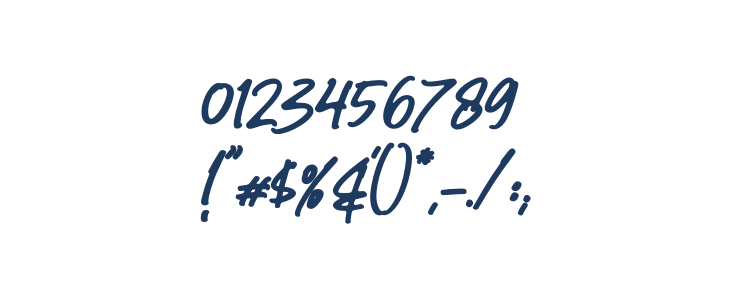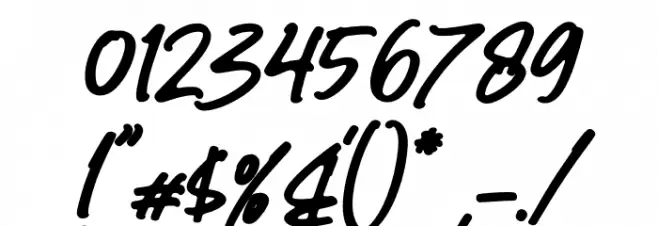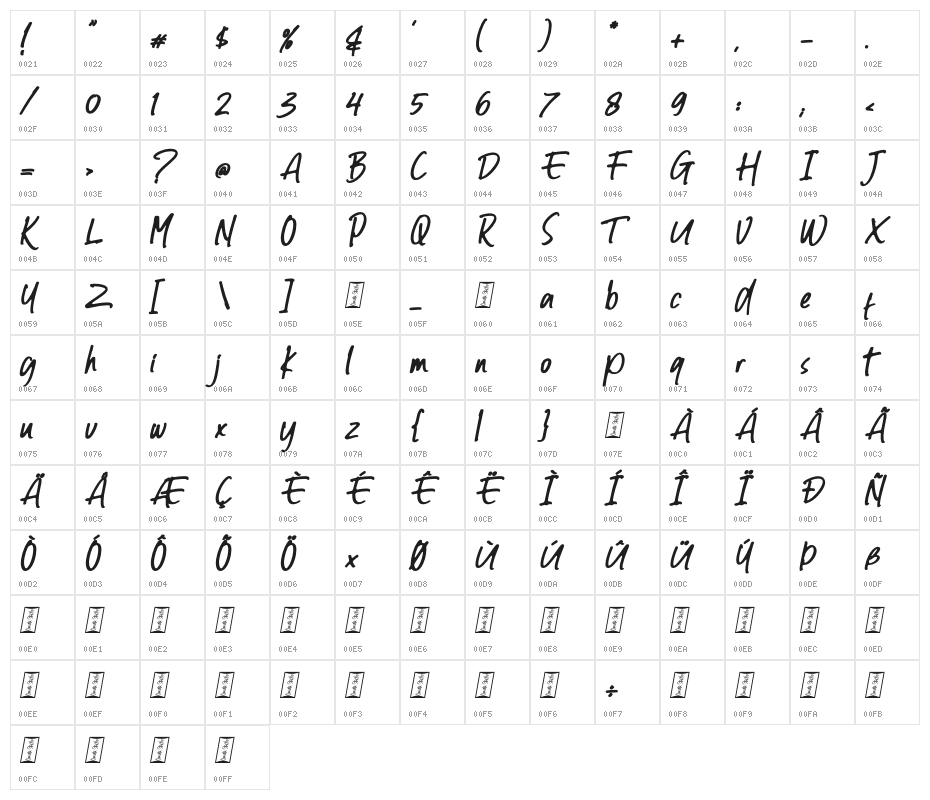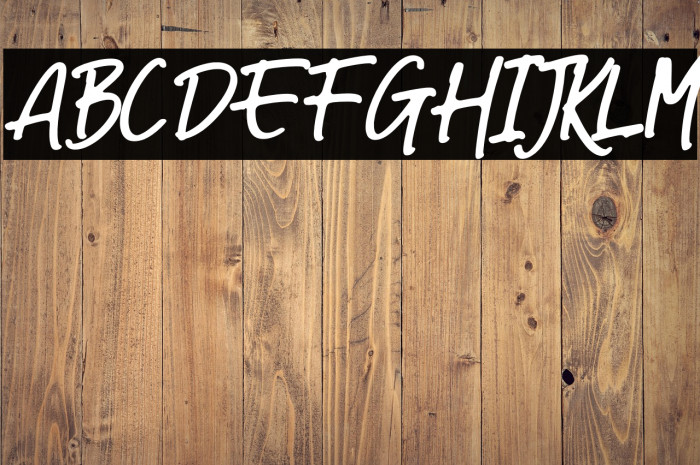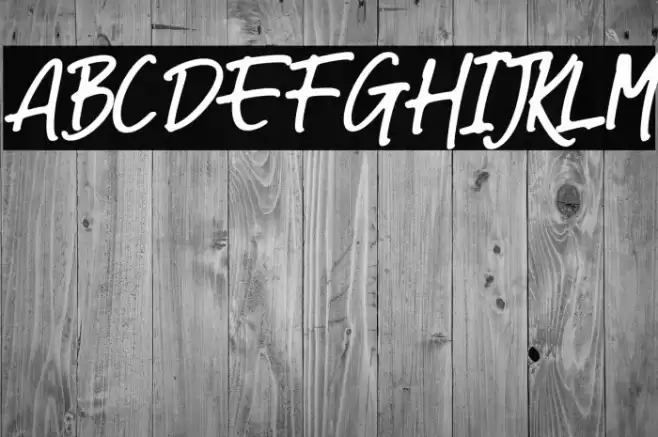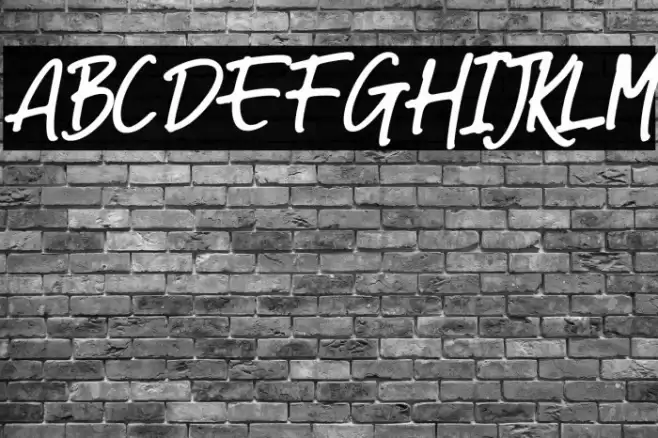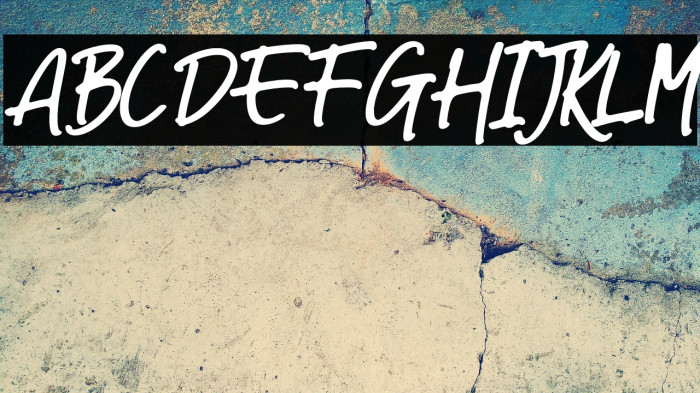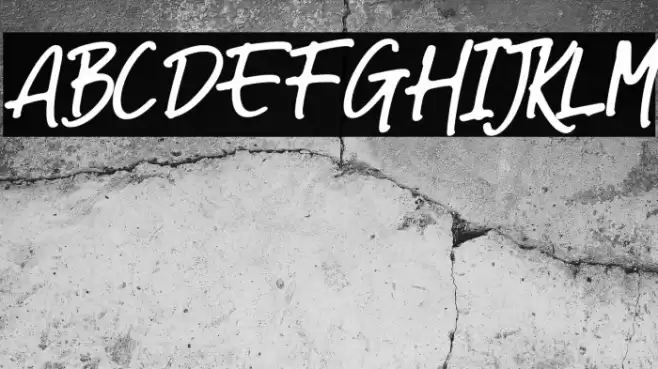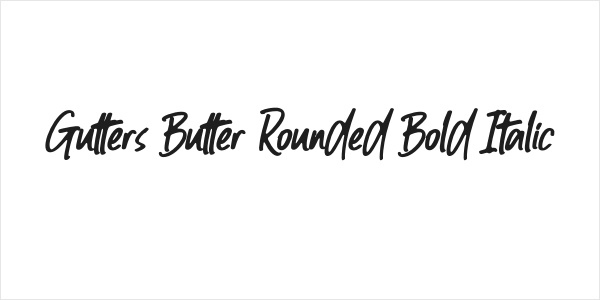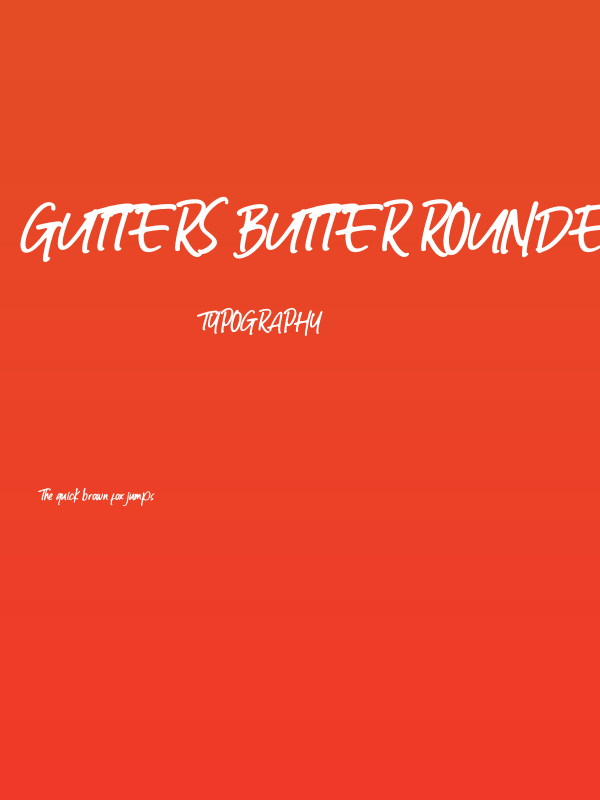
Gutters Butter Rounded Bold Italic Font
Gutters Butter Rounded Bold Italic Description
This font features a bold and dynamic handwritten style with rounded edges, giving it a friendly and approachable appearance. The letters are slightly slanted, emphasizing its italic nature, and the strokes are thick, providing a strong visual impact. The uppercase and lowercase letters maintain a consistent style, with playful curves and a casual flair. The numbers and special characters are equally expressive, matching the overall aesthetic. This font is ideal for projects that require a personal touch or a creative, informal vibe.
Proposed ProjectsPerfect for greeting cards, invitations, posters, and branding that seeks a personal and creative touch.